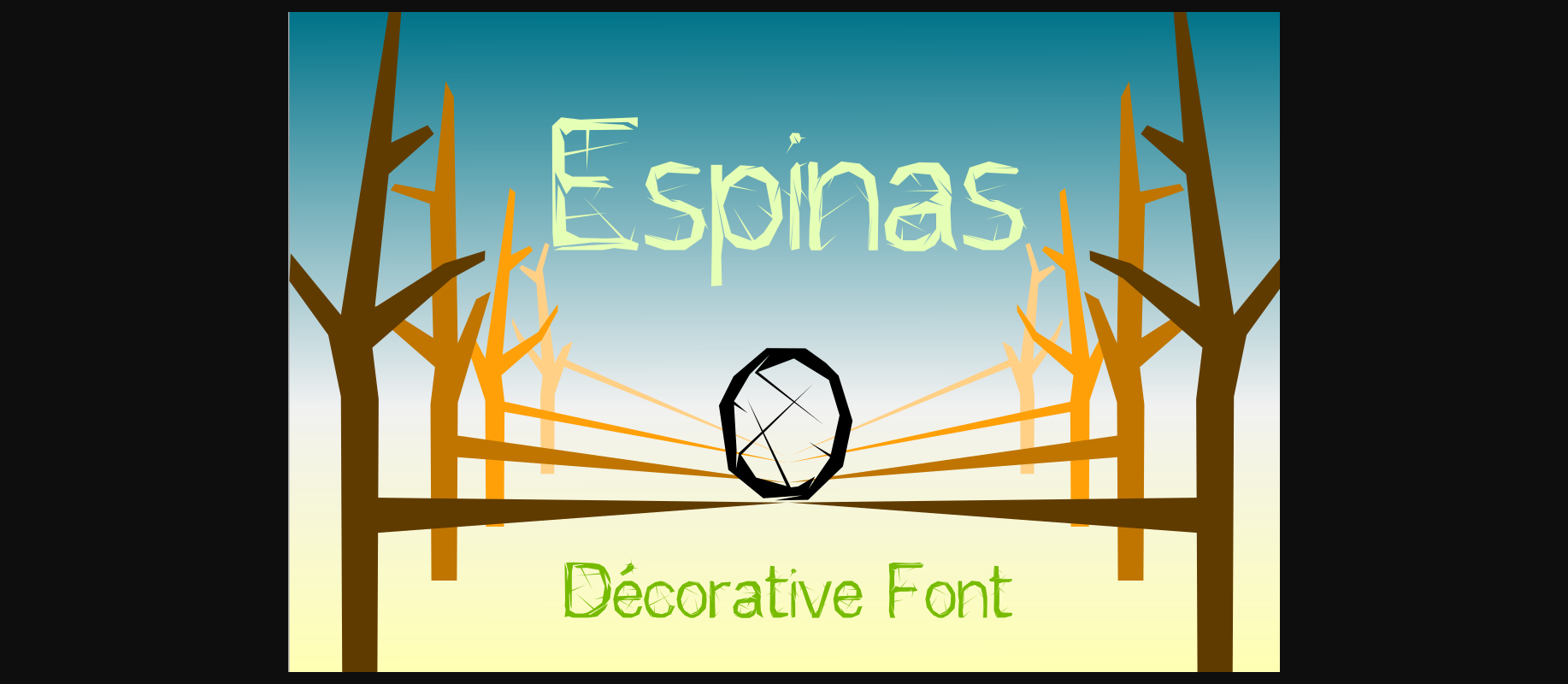
Espinas Font
About Espinas Font
Espinas is a fun, decorative, and thorny font that is ideal for themed projects! This easy to read decorative font is a great way to give your designs an eclectic vibe with a subtle Spanish flair.